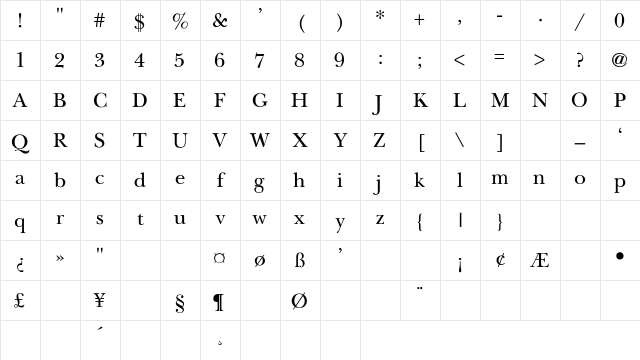
NewBaskerville-Light Regular
Design Context for NewBaskerville-Light
NewBaskerville-Light is a composed and adaptable typeface that performs quietly and consistently across a wide range of design contexts. Its slender proportions lend an understated elegance to any composition.